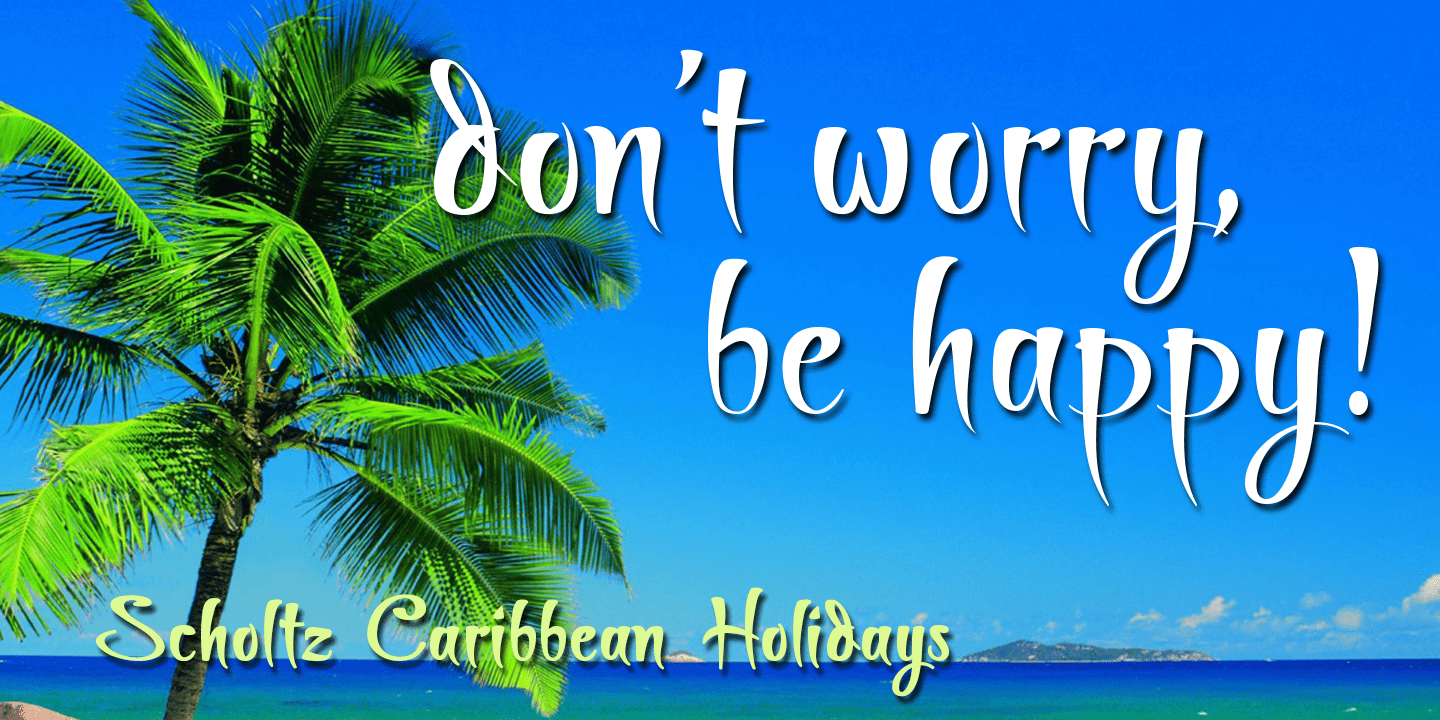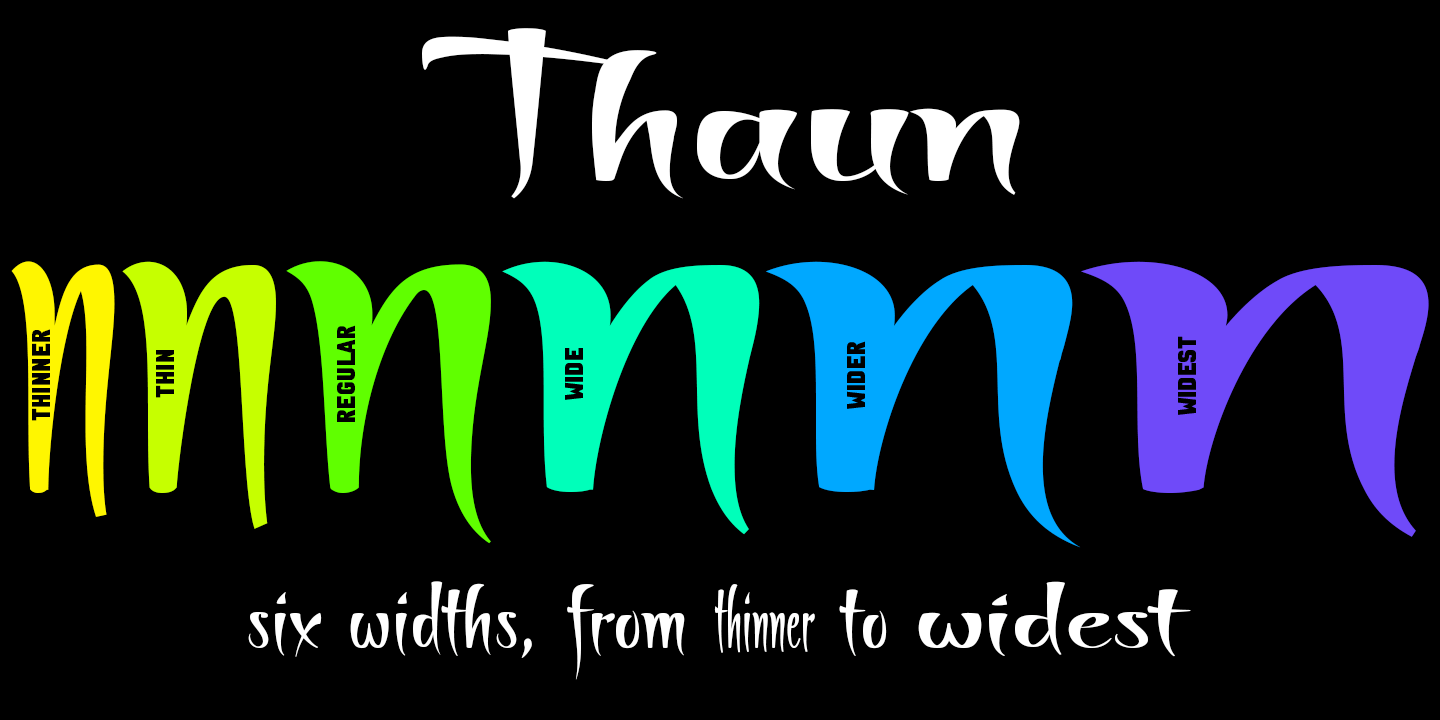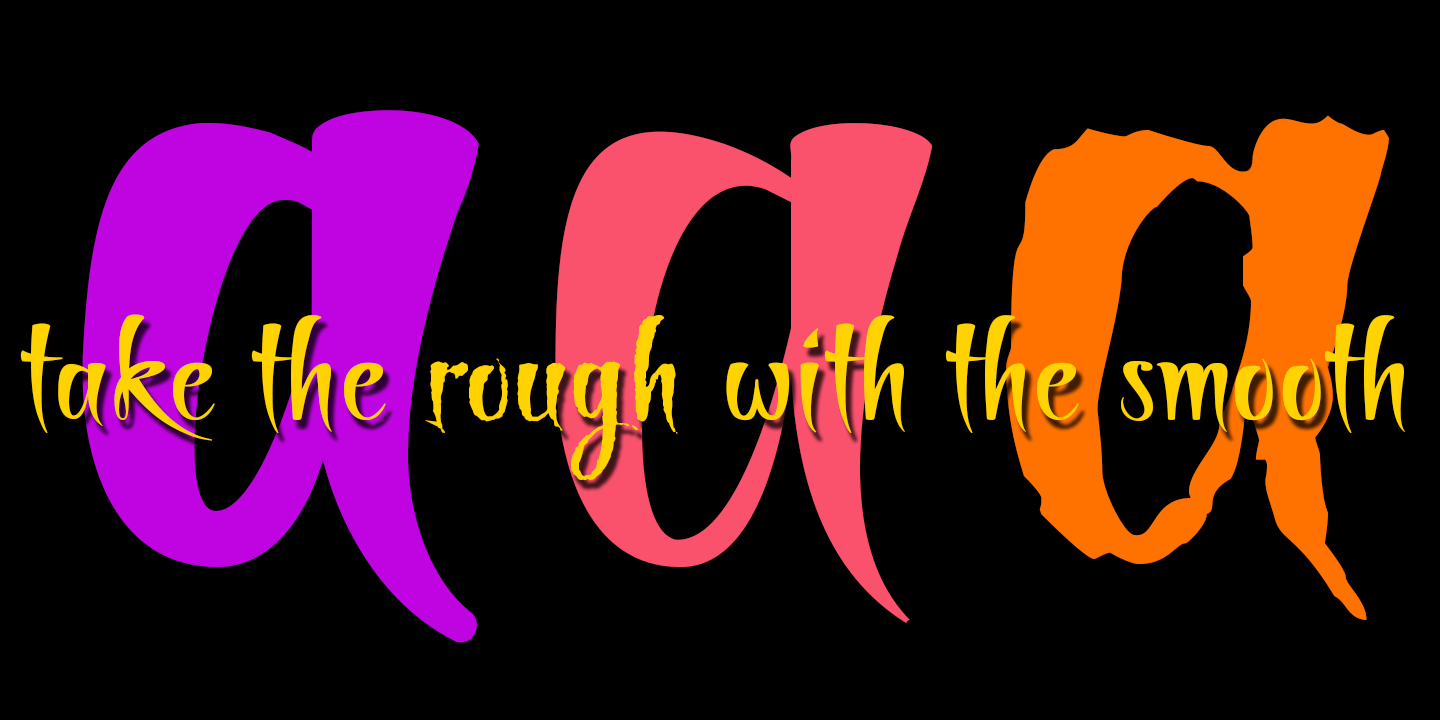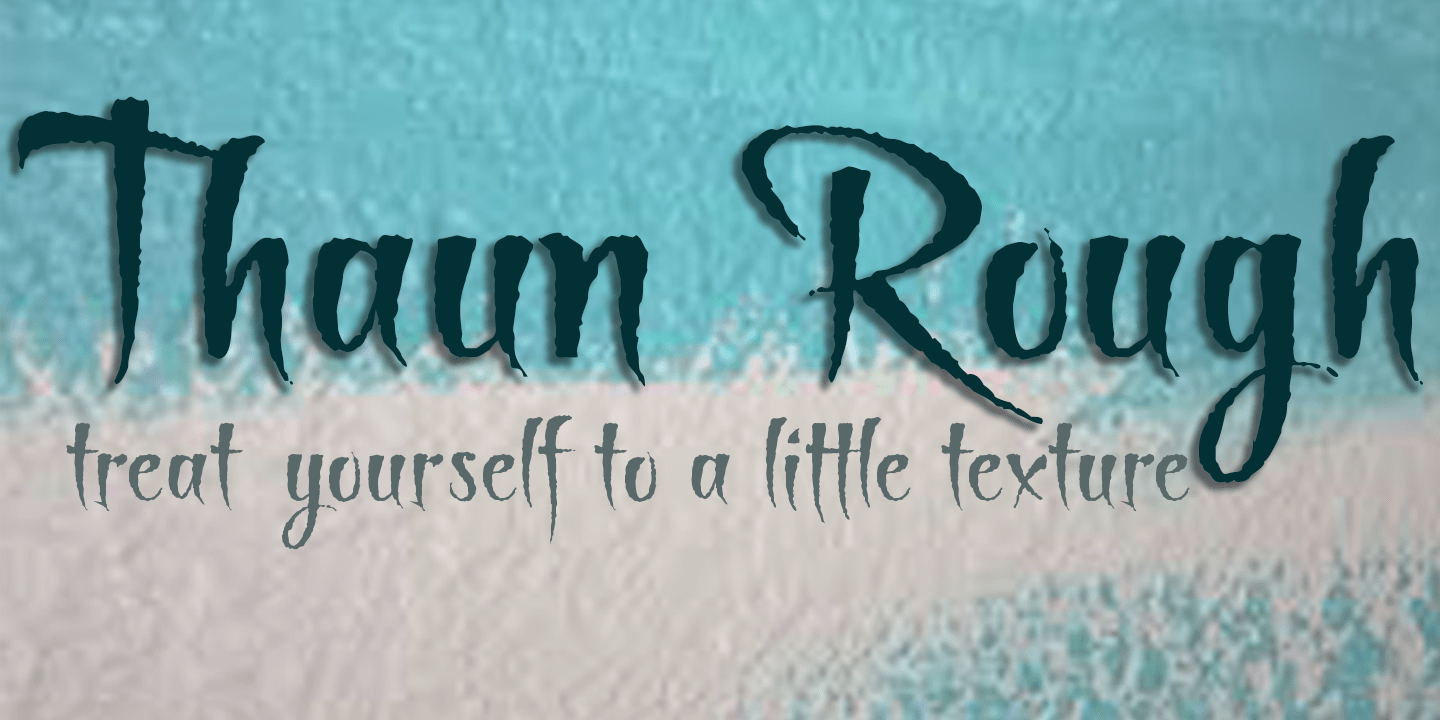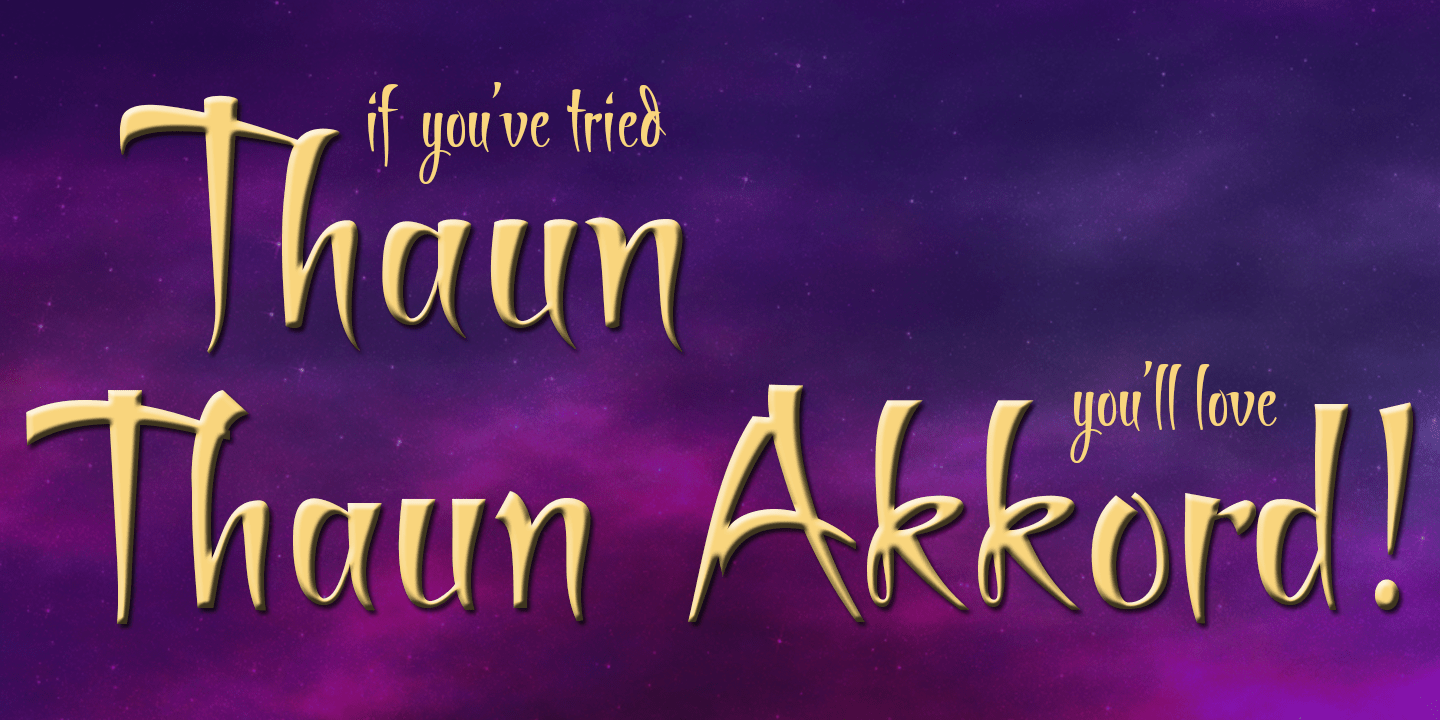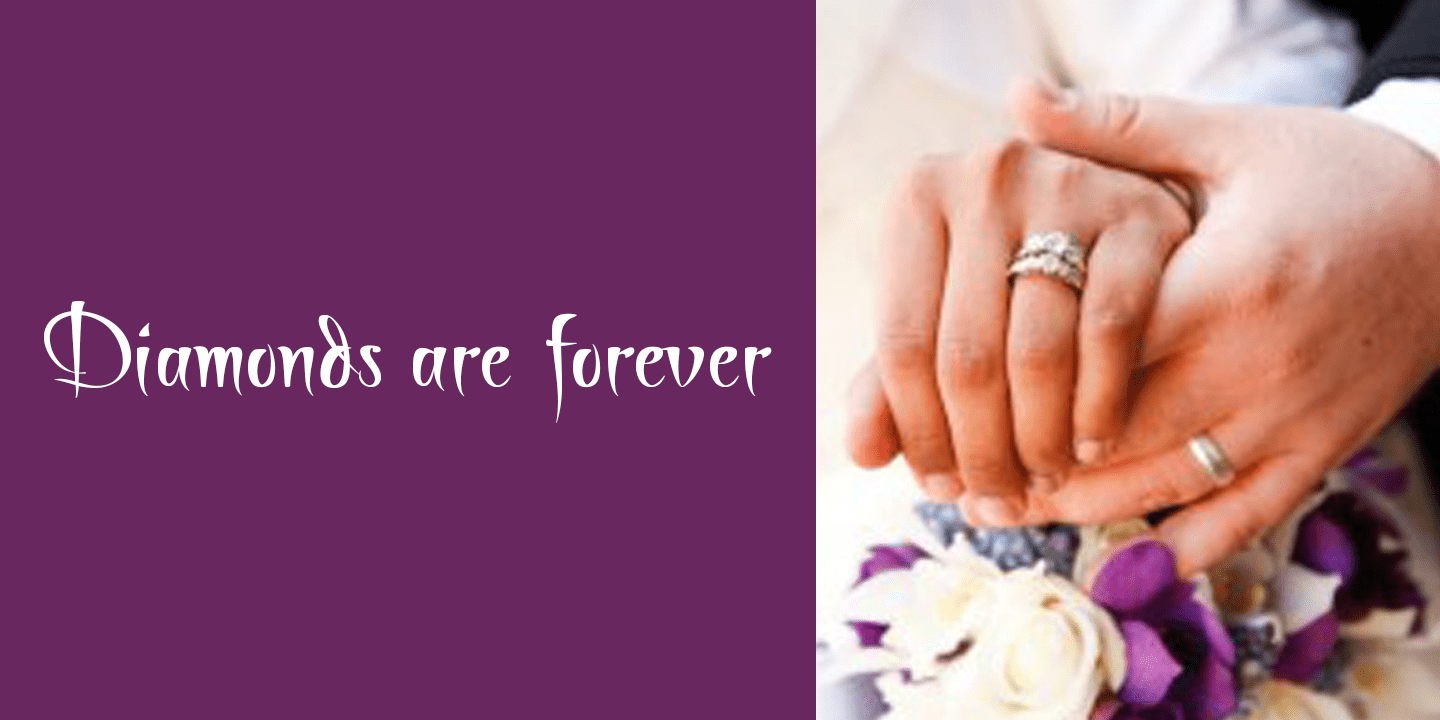
Thaun
As a graphic designer I became aware that designs that used a number of styles from the same family seemed to work well. This was easily done using a standard sans serif font such as Arial or Helvetica. However, when a different look is needed, display fonts do not always have a the variety of different styles that are necessary to produce a coherent design.
Thus with Thaun, the challenge was to create a coherent family based on a display font. The archetype of this family is Thaun Regular with six different widths forming closely related styles. There are also two variants of the archetype i.e. Thaun Black & Thaun Rough to add variety to the primary style. An additional sub-family, Thaun Accord, appears in two widths. Thaun Jazz is a wide three dimensional variation.
Thaun has all the features usually included in a fully professional font. Language support includes all European character sets, Greek symbols and all punctuation. Opentype features include automatic replacement of some characters and discretionary replacement of stylistic alternatives.